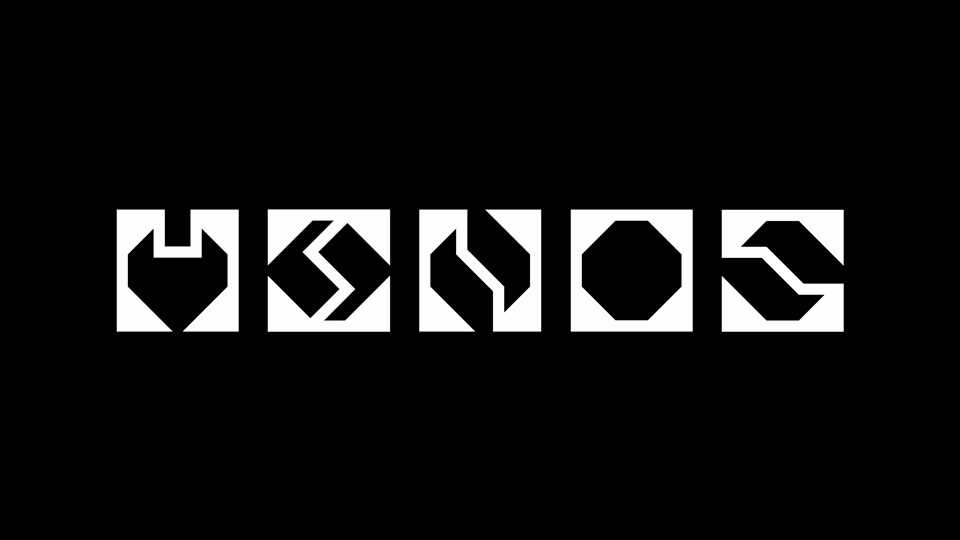
Download Minos typeface, a unique display font family with two styles based on the square grid and sharp geometric letterforms. Minos is perfect for display use, posters, album artworks, titles and short messages.
Designer: Benjamin Vernon